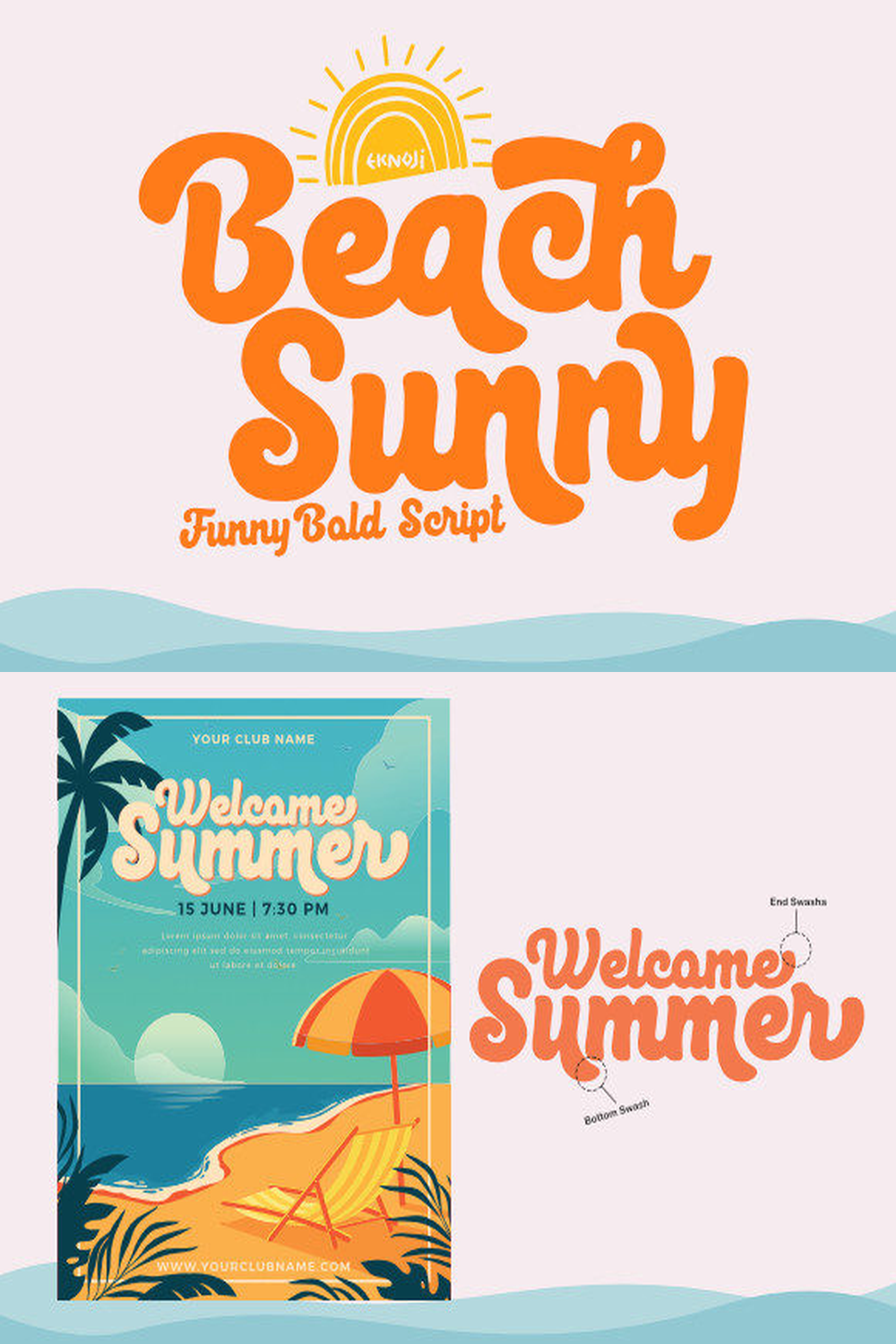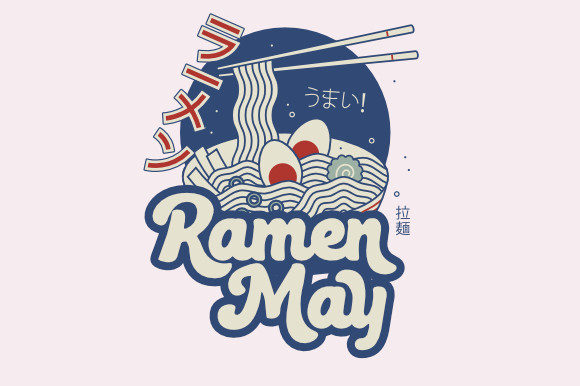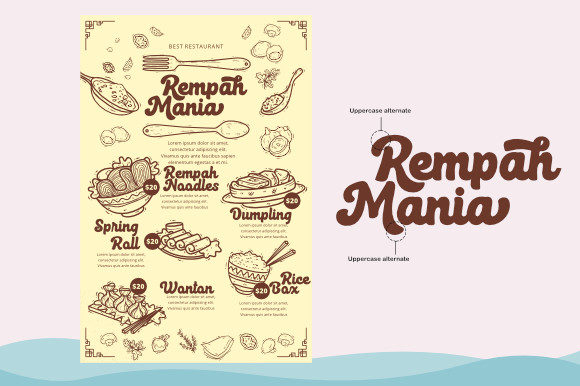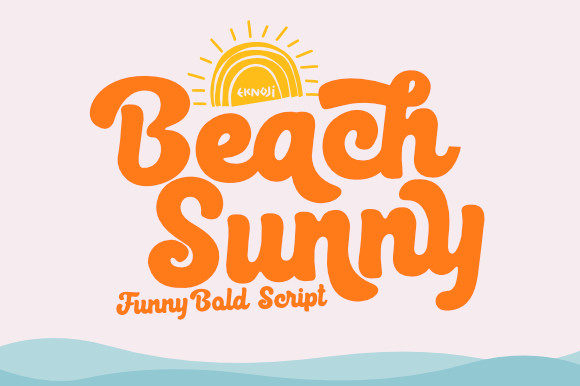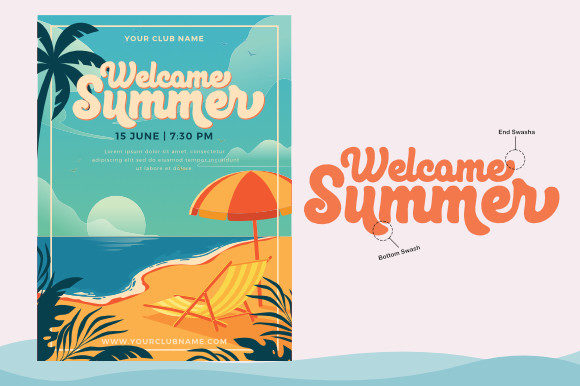
Beach Sunny Font
About the Beach Sunny Font
Discover the charm of Beach Sunny Font. This font is a perfect blend of modern aesthetics and classic appeal. Beach Sunny is a cool, vintage and retro styled handwritten font. It reads as strong, confident, and dynamic and can add tons of nostalgic character to your designs. This font is PUA encoded which means you can access all of the glyphs and swashes with ease!